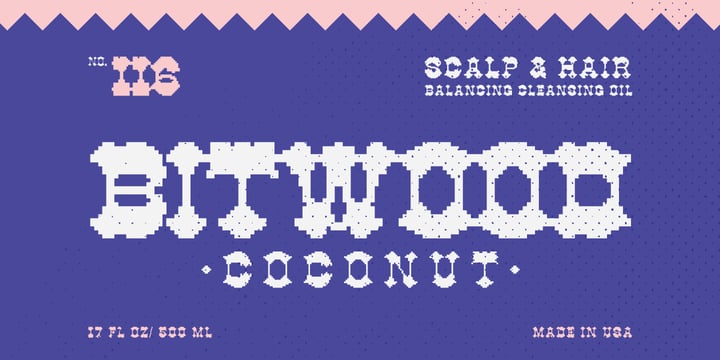
YWFT Bitwood
YWFT Bitwood by YouWorkForThem
YWFT Bitwood Font Family was published by YouWorkForThem. YWFT Bitwood contains 4 styles and family package options. More about this family
About YWFT Bitwood Font Family
If Pac Man was programmed by Sergio Leone, YWFT Bitwood would provide the commentary. One-of-a-kind, obscure, and sometimes downright obscene, YWFT Bitwood is a unique mashup of old-west saloon type and modern-day game console screens. It takes the idea of woodtype slabs forward through time into a bitmap pixel display font. Syntax error, pard! YWFT Bitwood is best used for display and header uses, but you could easily use it for body content and make your content editor go blind. YWFT Bitwood was converted to Opentype format in 2010